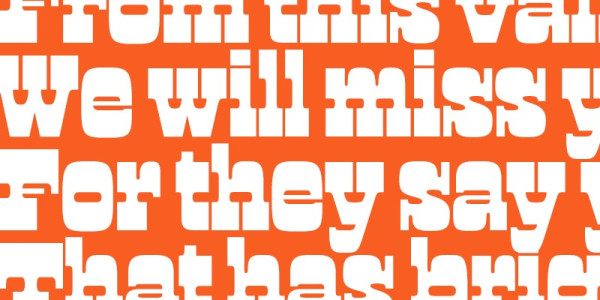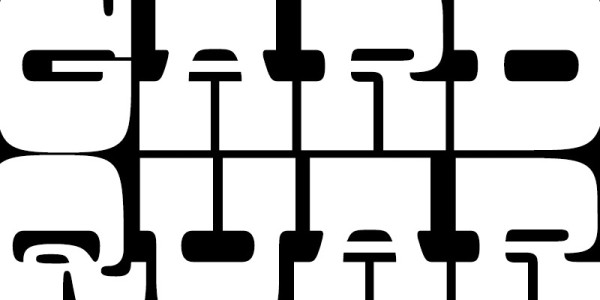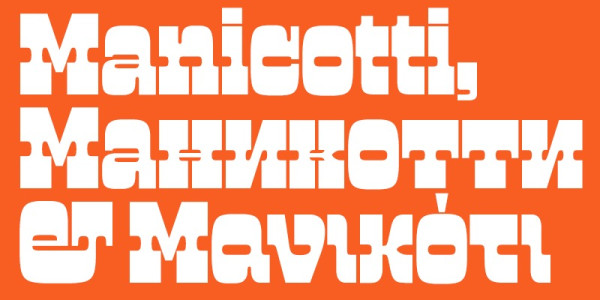
Manicotti Font
Manicotti Font is a retro slab serif typeface that captures the timeless charm of the Western cowboy era. Inspired by 19th century gnarled wood type, Manicotti takes the ornamentation of the reverse-contrast French Clarendon style to the extreme. Its thick upper and lower stems and generous serifs create an eerily dense typographic texture reminiscent of spaghetti westerns, rough roads and bombastic saloons.